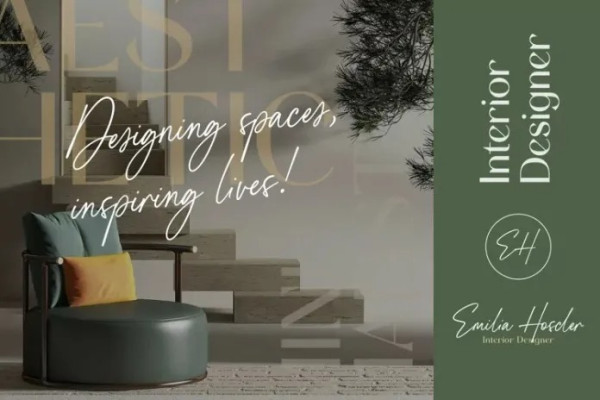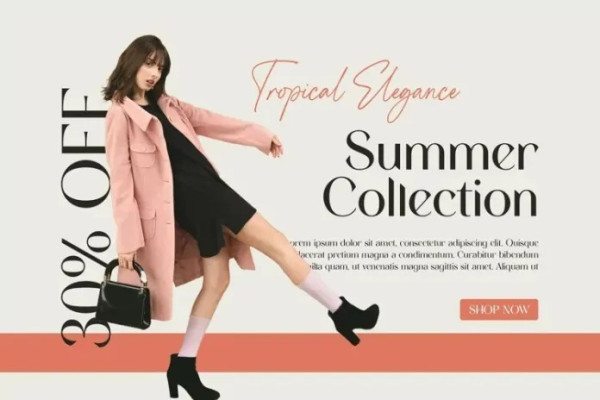
Cellien Font Duo
Cellien Font is an enchanting font duo consisting of a graceful script and a timeless sans-serif. With over 140 ligatures, the script font features natural and flowing letterforms, while the sans-serif font adds a clean and polished aesthetic. These fonts are designed to harmoniously pair together and are suitable for various design projects such as logos, branding, posters, labels, product packaging, invitation designs, and more.